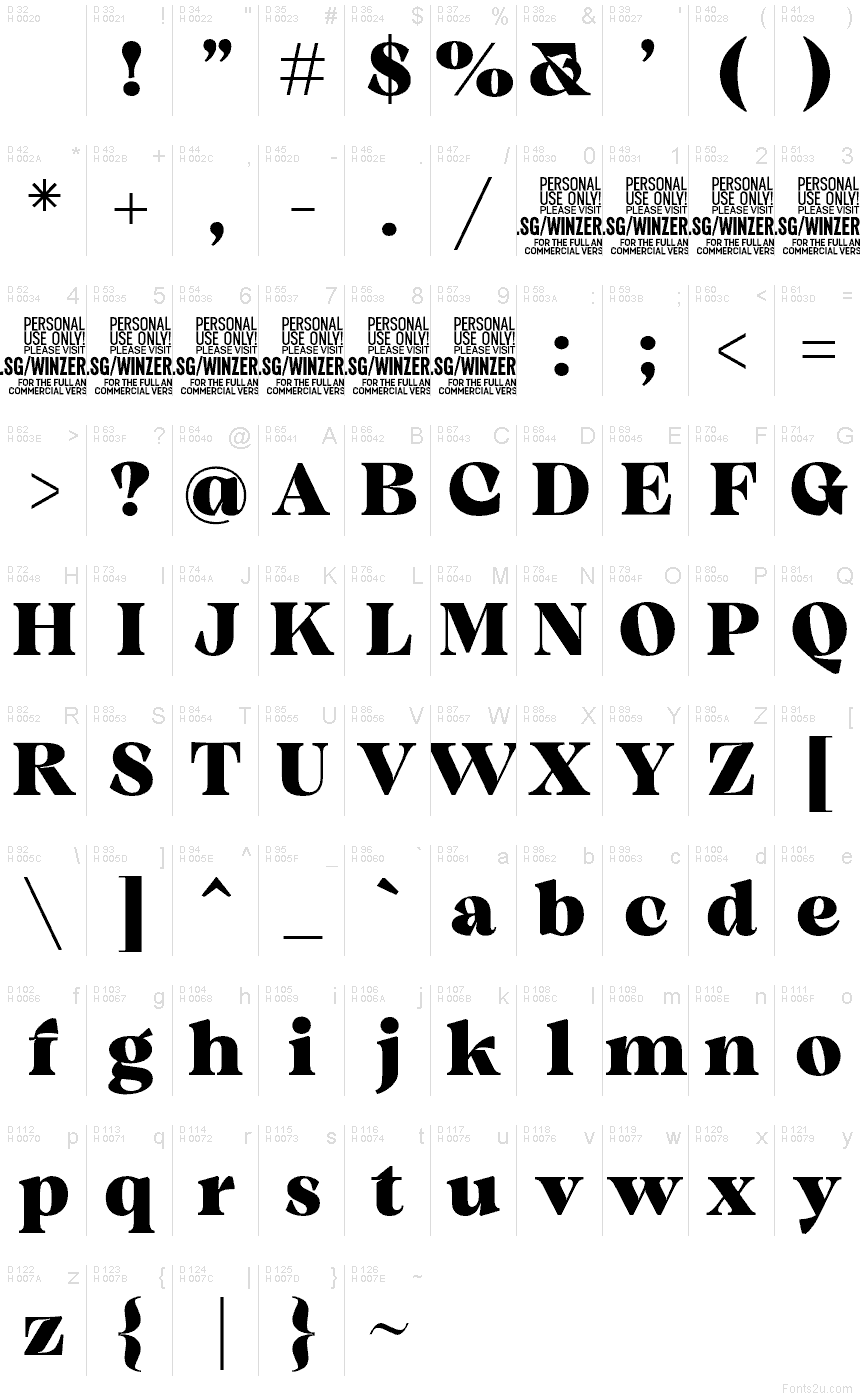
Winzer Serif PERSONAL USE Optical Black
Winzer Serif Optical Black font by Mans Greback is a free black serif font in the Winzer Serif family. Built for big type, it throws heavy, inky strokes and chiseled wedge serifs that bite into the page, while its compact spacing packs a punch without turning muddy. The rhythm is steady and assertive, giving headlines a carved, premium feel that reads fast and hits hard.
Using Winzer Serif Optical Black, headlines, magazine covers, wine and spirits labels, restaurant menus, event posters, and luxury packaging all gain instant stature. This free font’s bold massing and crisp joins create billboard-strength impact at large sizes. For balance, pair it with a light, neutral sans for body copy, and give it generous tracking above 36pt to let those sharp serifs breathe.